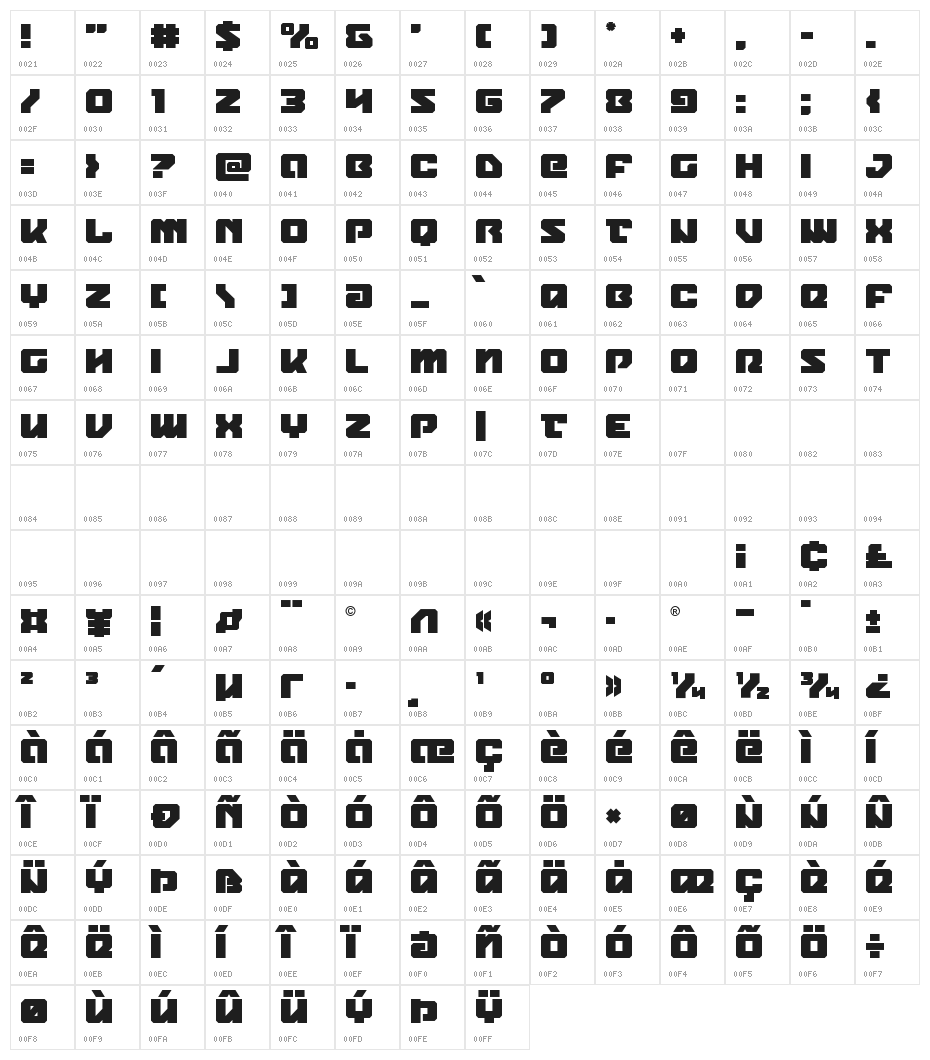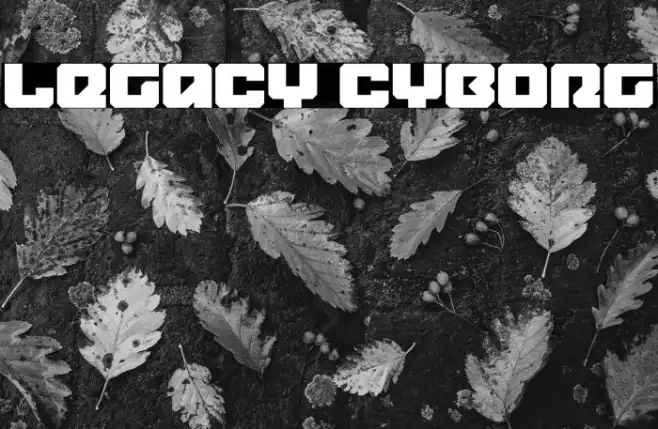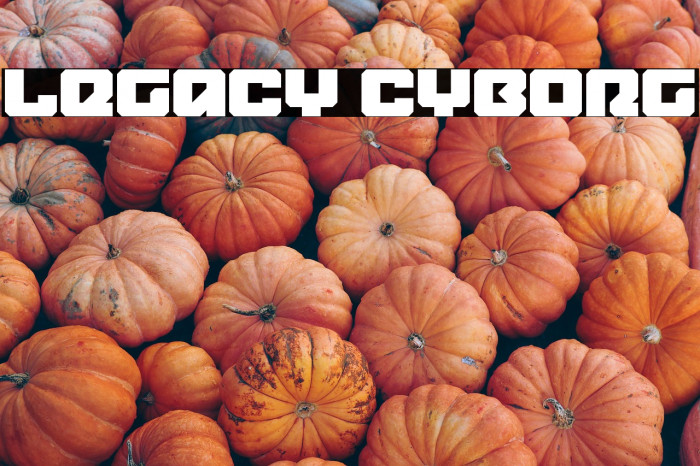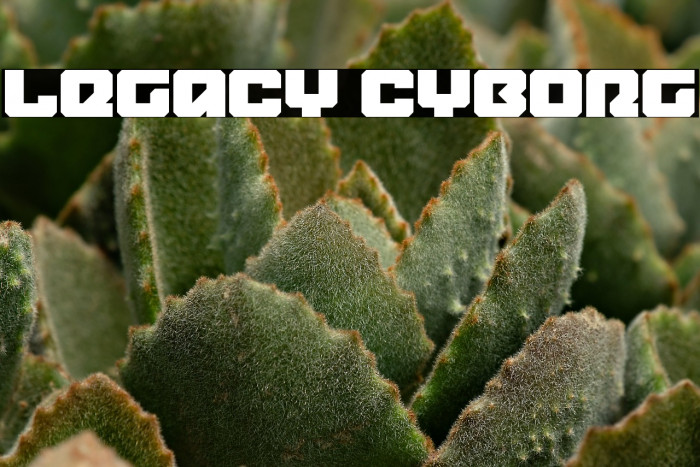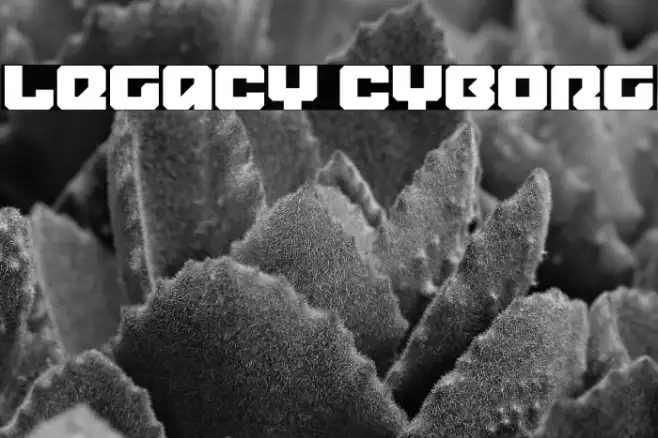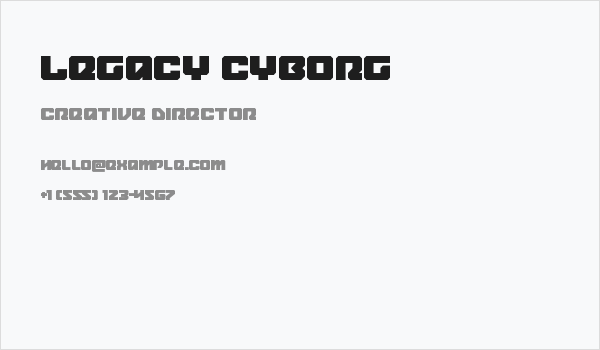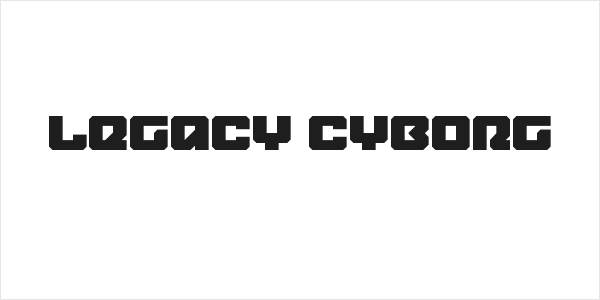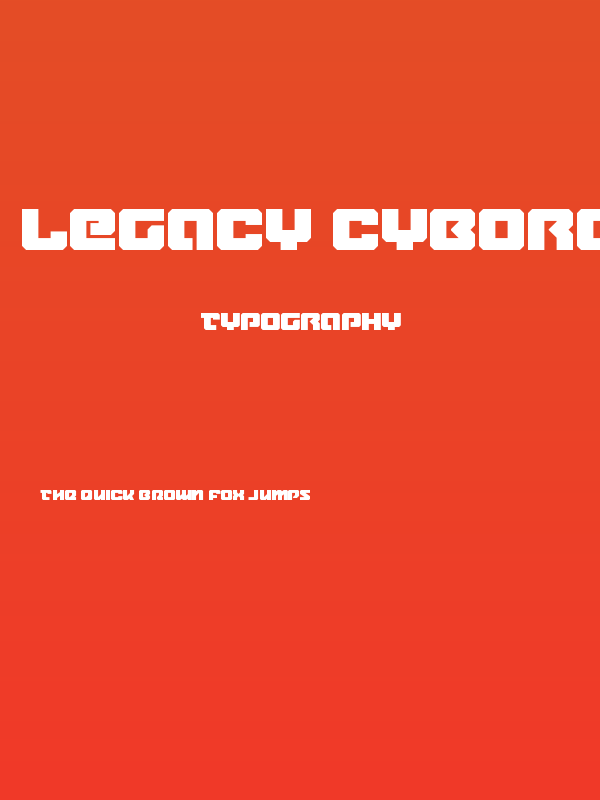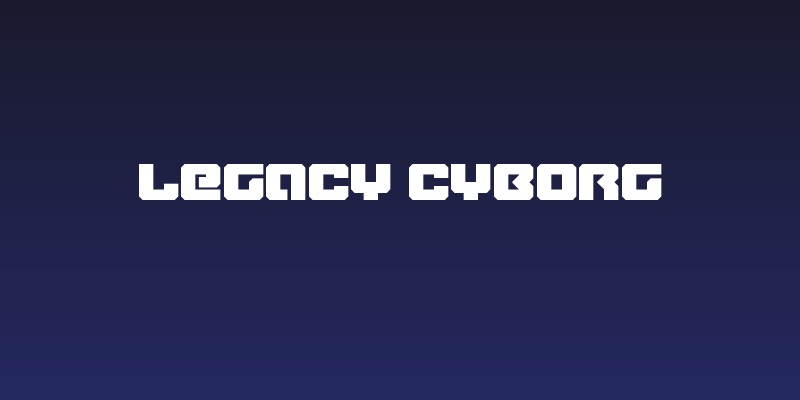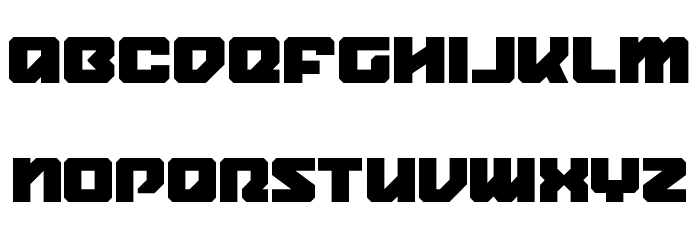
Legacy Cyborg Font
Legacy Cyborg Description
This font features a bold, futuristic design with a distinctly angular and geometric style. The characters are constructed with sharp edges and straight lines, giving it a robotic and mechanical appearance. The uppercase and lowercase letters maintain a consistent width, contributing to a uniform and cohesive look. The numbers and special characters follow the same design principles, ensuring a seamless integration across different uses. This font's strong presence and unique style make it ideal for projects that require a modern and tech-inspired aesthetic.
| Proposed Projects | Ideal for sci-fi themed designs, video game titles, tech branding, and futuristic posters. |